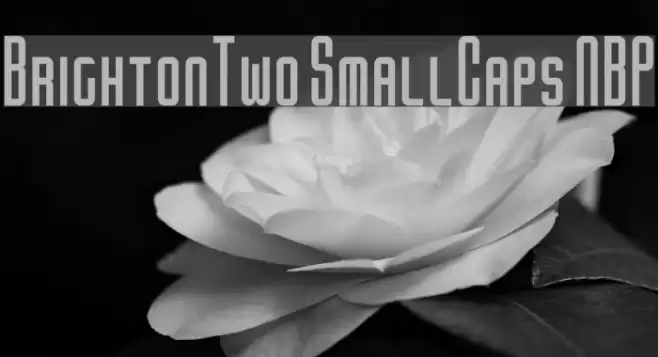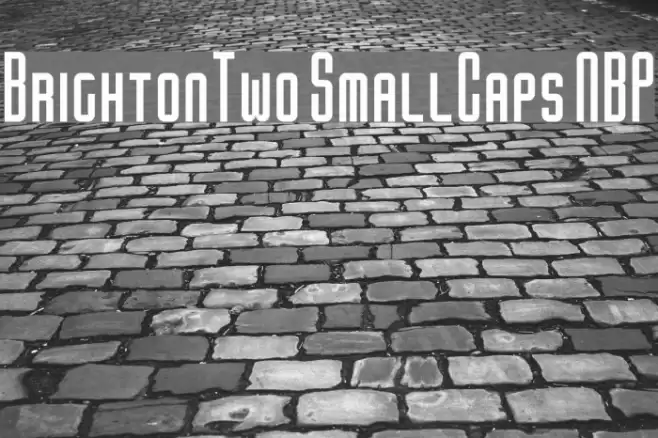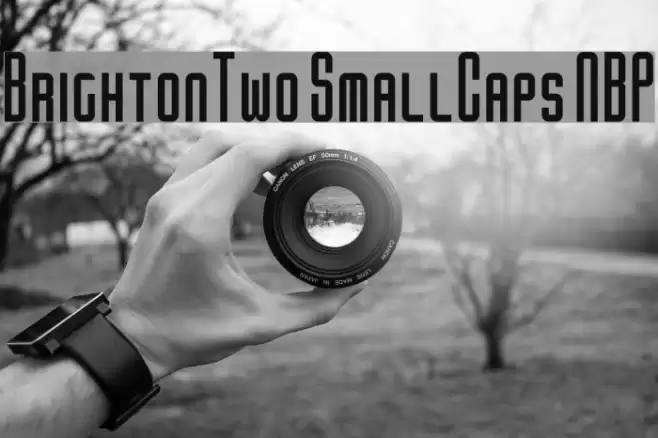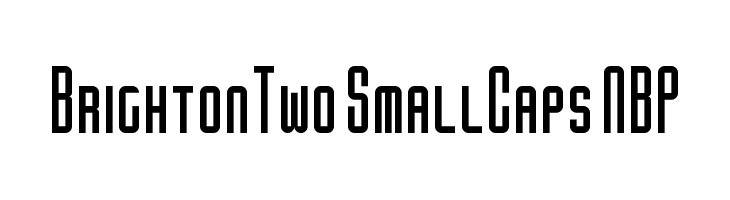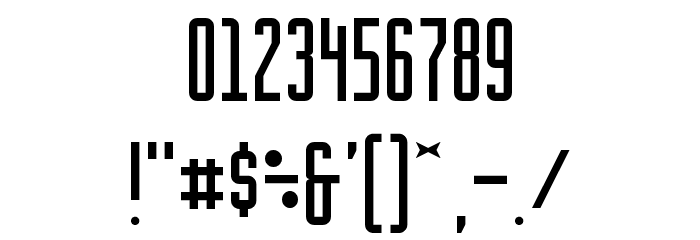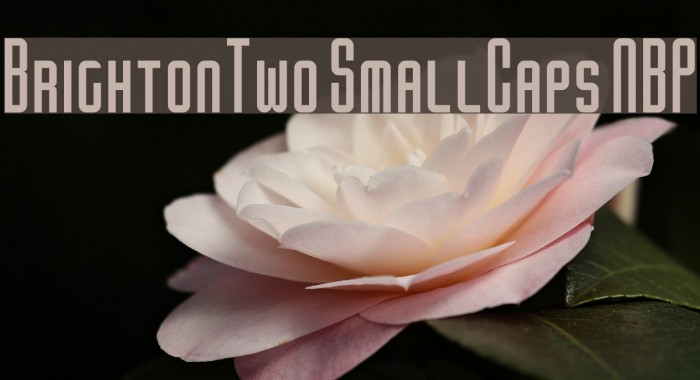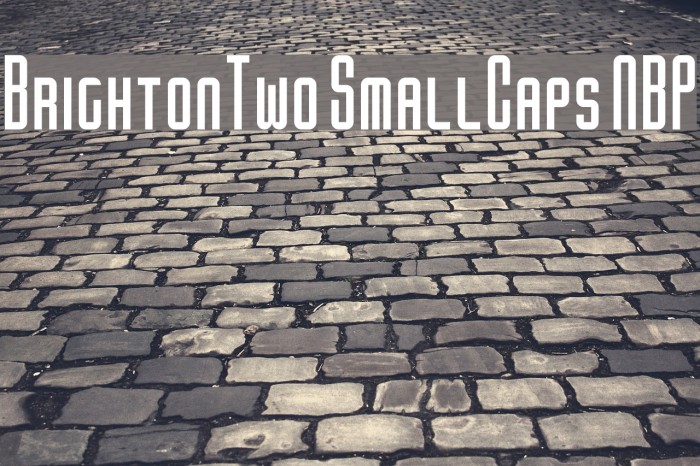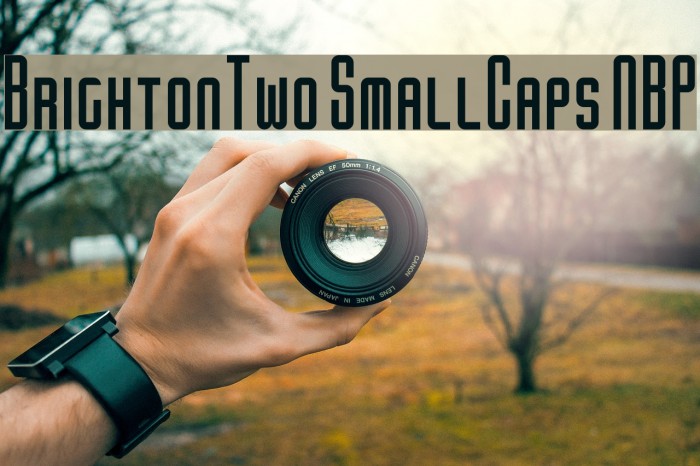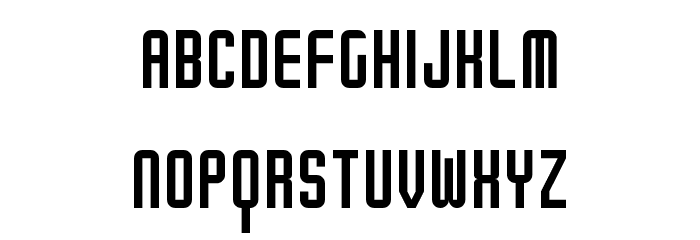
BrightonTwo SmallCaps NBP Font
BrightonTwo SmallCaps NBP Description
This font features a bold and structured design with a modern and geometric aesthetic. The characters are tall and narrow, giving a condensed appearance that is both striking and legible. The uppercase letters are uniform in height, while the lowercase letters maintain a similar width, creating a cohesive look across the typeface. The numerals are distinct and align well with the overall style, ensuring clarity in numerical data. Special characters are included, maintaining the same bold and geometric style, making this font versatile for various uses. The consistent stroke width across all characters provides a clean and polished appearance, suitable for both digital and print media.
A bold, geometric font with a modern and condensed style from Uncategorized fonts.
- Proposed Projects: Ideal for branding, posters, headlines, and digital media where a modern and impactful look is desired.